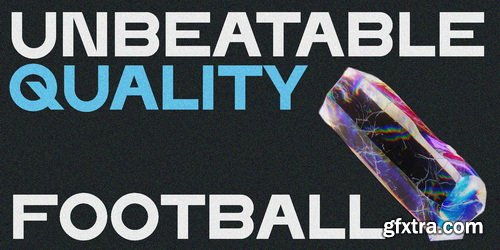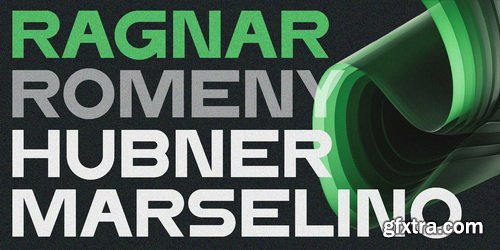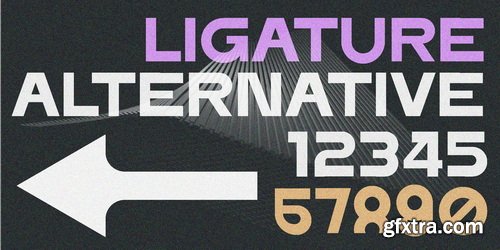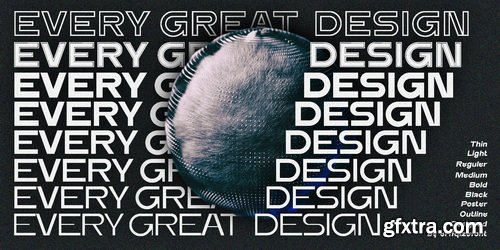
MyFonts - ERF Neot Font Family
ERF NEOT is a modern geometric sans serif with a bold and futuristic design. Combining strong structure with sleek simplicity, this font comes in 16 family styles, offering maximum versatility for any project. With multilingual support, ERF NEOT ensures optimal readability across various languages. Perfect for branding, editorial, UI/UX, and modern design concepts, ERF NEOT is the ideal choice for those who seek a clean, sharp, and professional aesthetic.